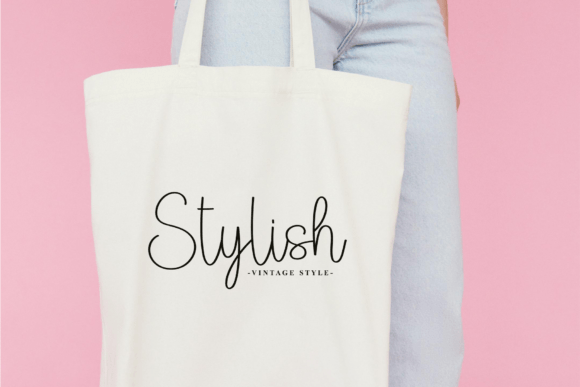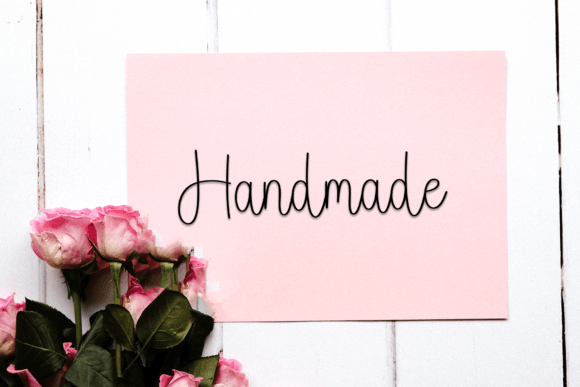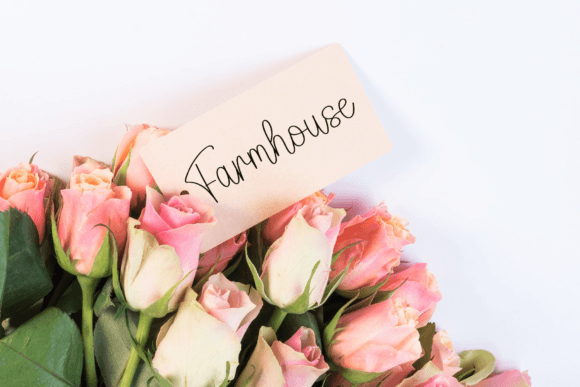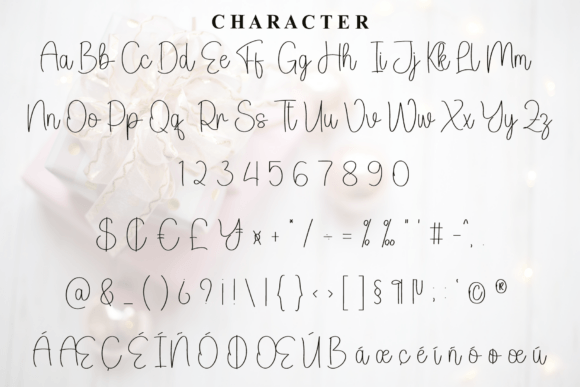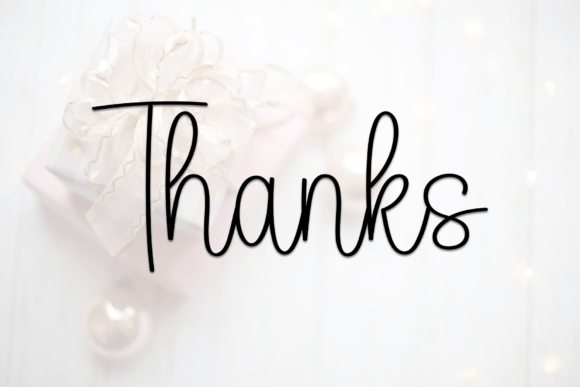
Introducing Birthday Font: The Perfect Handwritten Style for Your Designs
Are you looking for a font that adds a personal touch to your designs? Look no further than Birthday Font, a beautiful handwritten font that resembles marker-drawn text. With its relaxed and sporty feel, Birthday Font is ideal for a wide range of design projects, from branding and logos to wedding supplies, greeting cards, and more.
What Makes Birthday Font Special?
Birthday Font is a unique and versatile font that can elevate your designs to the next level. Its handwritten style gives it a friendly and approachable feel, making it perfect for designs that require a personal touch. The font’s marker-drawn aesthetic adds a touch of whimsy and playfulness, making it suitable for a variety of creative projects.
Uses for Birthday Font
Birthday Font is a versatile font that can be used in a variety of design projects, including:
- Branding and Logos: Use Birthday Font to create a unique and memorable brand identity that stands out from the crowd.
- Wedding Supplies: Add a personal touch to your wedding stationery, invitations, and decorations with Birthday Font.
- Greeting Cards: Create beautiful and heartfelt greeting cards for special occasions, such as birthdays, anniversaries, and holidays.
- Fashion and Lookbooks: Use Birthday Font to add a touch of elegance and sophistication to your fashion designs and lookbooks.
- Marketing Promotions: Make your marketing materials stand out with Birthday Font’s unique and eye-catching style.
Why Choose Birthday Font?
So why choose Birthday Font for your design projects? Here are just a few reasons:
- Unique Style: Birthday Font has a one-of-a-kind style that will set your designs apart from the rest.
- Versatility: Birthday Font can be used in a wide range of design projects, from digital designs to print materials.
- Elegant yet Casual: Birthday Font strikes the perfect balance between elegance and casualness, making it suitable for designs that require a touch of sophistication and whimsy.
Tips for Using Birthday Font
Here are a few tips for using Birthday Font in your design projects:
- Pair with Other Fonts: Experiment with pairing Birthday Font with other fonts to create a unique and visually appealing design.
- Use in Headlines and Titles: Use Birthday Font in headlines and titles to add a touch of personality and whimsy to your designs.
- Experiment with Colors: Try out different colors and color combinations to find the perfect look for your design.
In conclusion, Birthday Font is a beautiful and versatile handwritten font that is perfect for designers and crafters looking to add a personal touch to their designs. With its relaxed and sporty feel, Birthday Font is suitable for a wide range of design projects, from branding and logos to wedding supplies and greeting cards. Whether you’re looking to create a unique brand identity or add a touch of elegance to your designs, Birthday Font is the perfect choice.